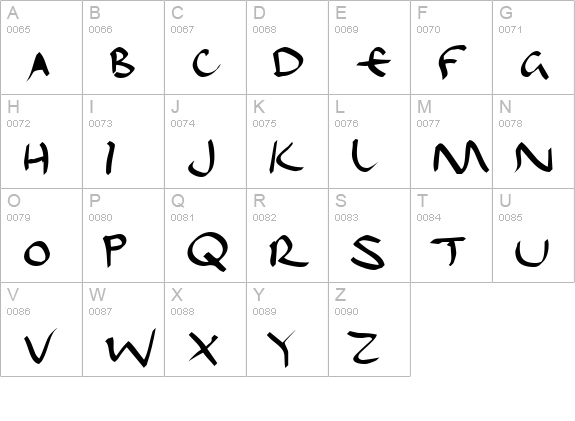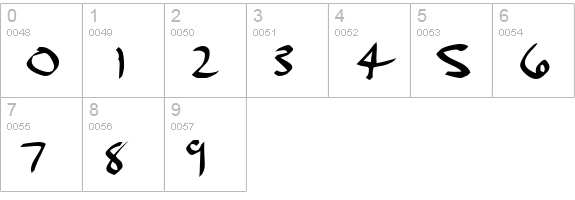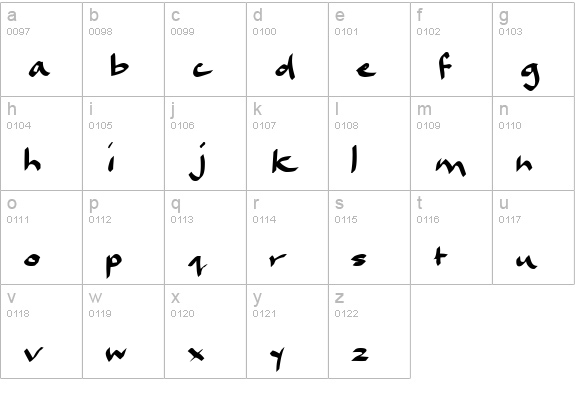
Dael Calligraphy Font Details
Dael Calligraphy is a stunning, elegant font that effortlessly captures the beauty and grace of traditional calligraphy. With its intricate strokes and delicate curves, this font is perfect for adding a touch of sophistication and refinement to any project. Whether you're designing wedding invitations, creating beautiful logos, or adding a touch of class to your personal correspondence, Dael Calligraphy is sure to impress. Its timeless appeal and classic style make it suitable for a wide range of applications. What sets Dael Calligraphy apart from other fonts is not only its exquisite design, but also the fact that it is free. That's right, you can download this exceptional font for absolutely no cost at FontsMarket.com. We believe that everyone should have access to high-quality fonts, and Dael Calligraphy is no exception. By offering Dael Calligraphy for free, we hope to inspire creativity and empower designers to bring their visions to life without any financial barriers. Now, you can elevate your designs with the elegance and charm of calligraphy, without having to spend a dime. So why wait? Download Dael Calligraphy today and experience the beauty and versatility of this remarkable font. Whether you're a professional designer or a hobbyist, this font is sure to become a valuable addition to your collection. Don't miss out on this opportunity to enhance your creative projects with the timeless allure of Dael Calligraphy, available for free at FontsMarket.com.